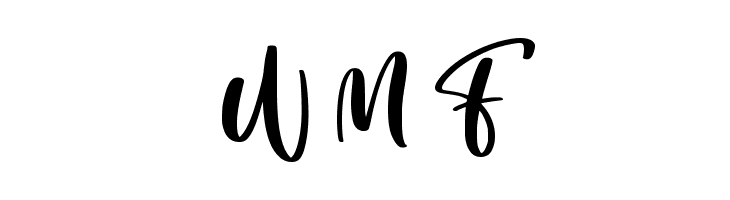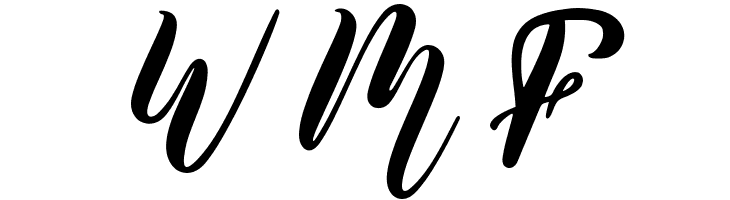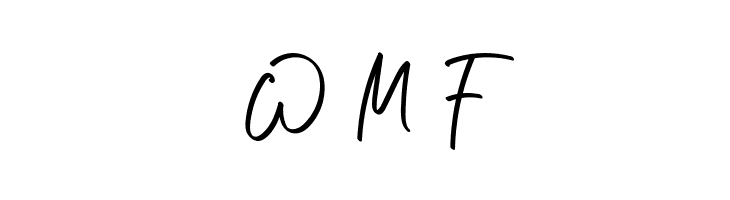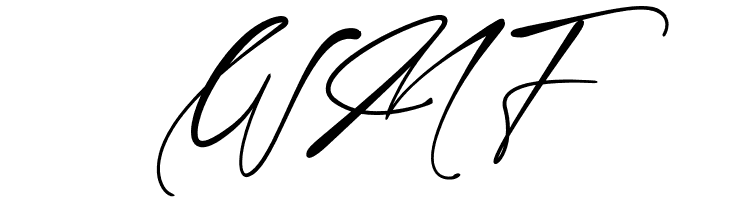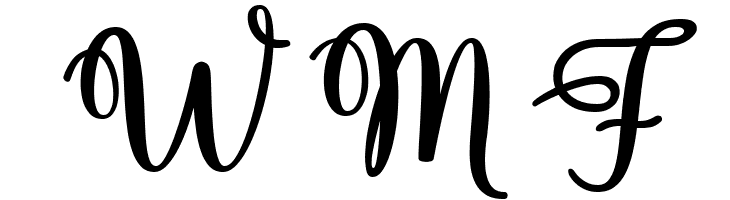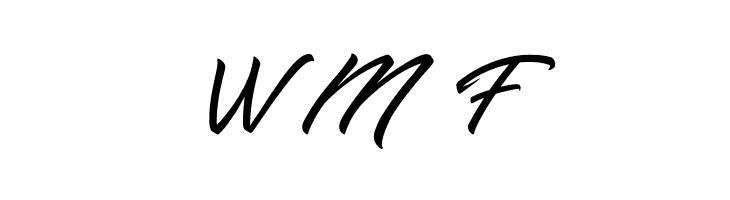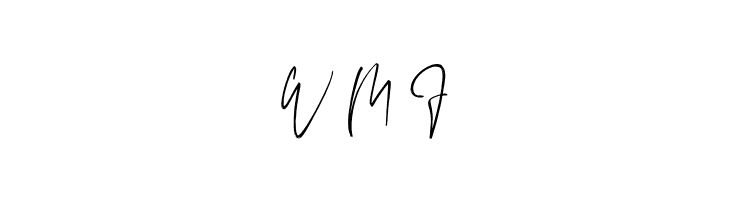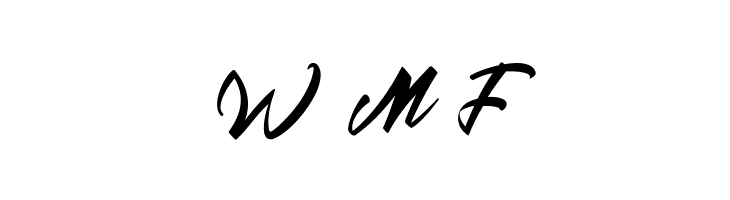
A playful and whimsical script font with bold, flowing letterforms.
A romantic, cursive font with flowing, elegant strokes and playful flourishes.
A lively, cursive script font with fluid strokes and a personal touch.
A bold, expressive script font with a flowing, cursive style.
A dynamic cursive script font with fluid, expressive strokes.
A festive, cursive script font with bold strokes and elegant loops.
A bold, cursive handwritten font with dynamic and fluid strokes.
A cursive, handwritten style font with elegant, flowing strokes.
A vintage, handwritten-style font with dynamic, fluid characters.
A bold, cursive font with dynamic, flowing script and decorative flourishes.